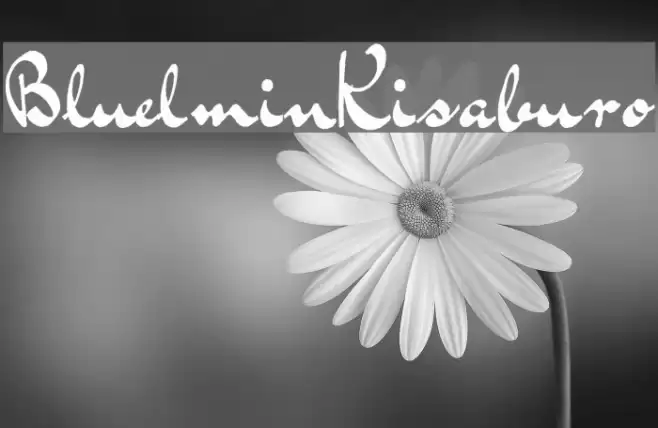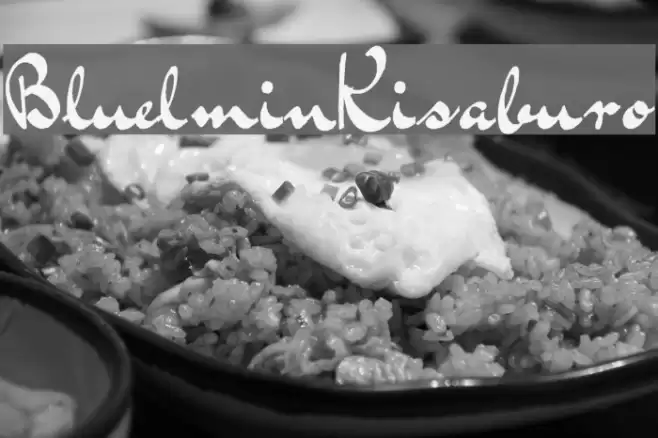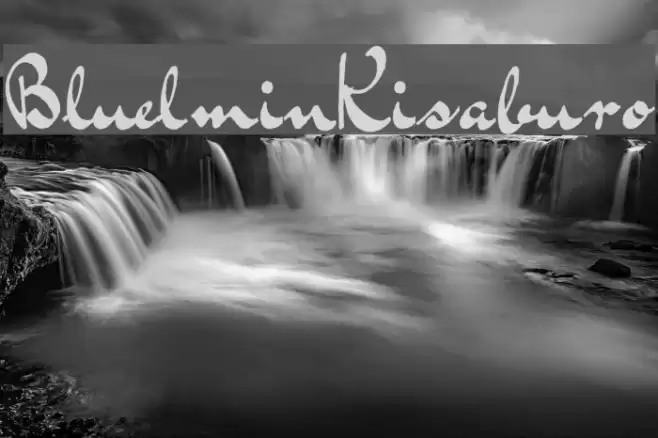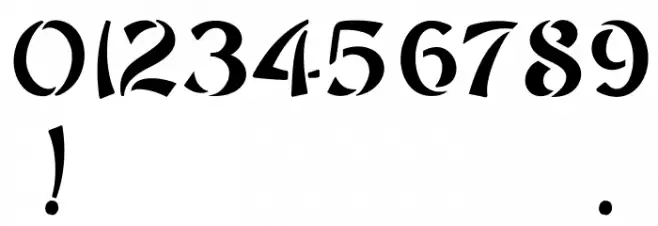
BluelminKisaburo Font
BluelminKisaburo Description
This font features a dynamic and flowing script style, characterized by its elegant and artistic strokes. The uppercase letters exhibit a bold and expressive flair, with sweeping curves and a sense of movement that suggests a handwritten quality. The lowercase letters maintain this fluidity, offering a harmonious balance between formality and creativity. The numerals are bold and distinctive, complementing the overall aesthetic with their unique shapes. Special characters are integrated seamlessly, enhancing the font's versatility. This font's design is both striking and sophisticated, making it suitable for a variety of creative applications.
A dynamic and flowing script font with bold, expressive strokes from Uncategorized fonts.